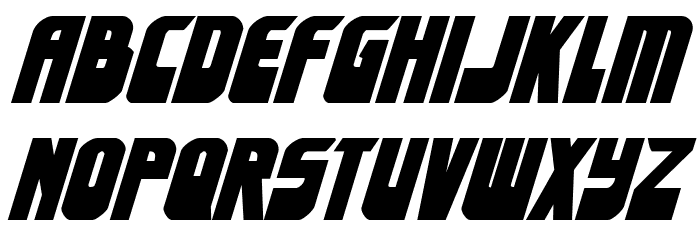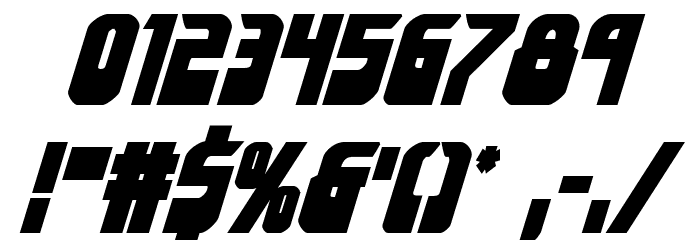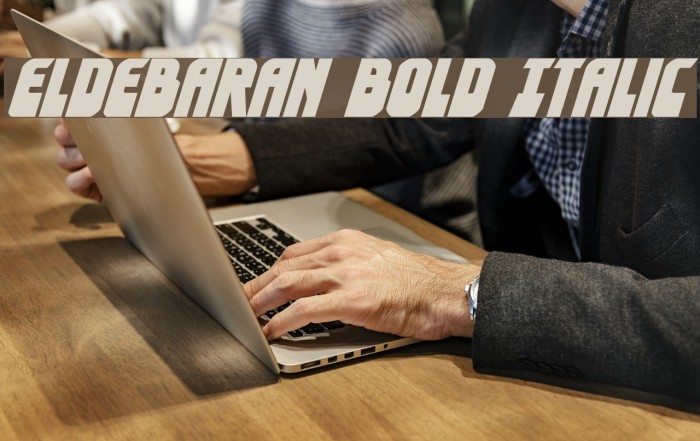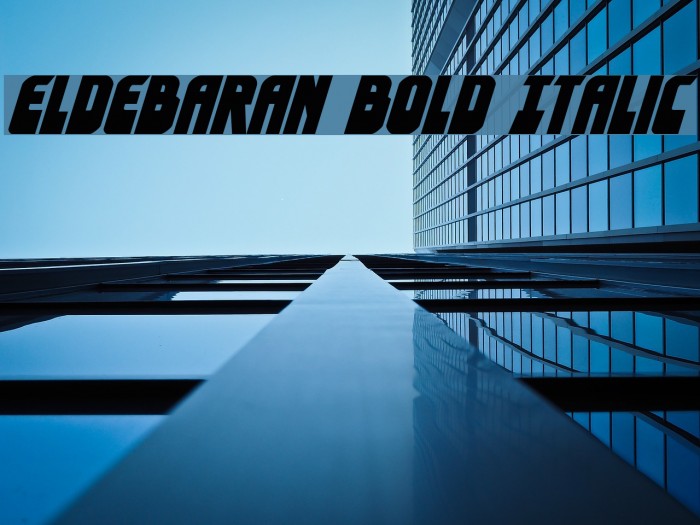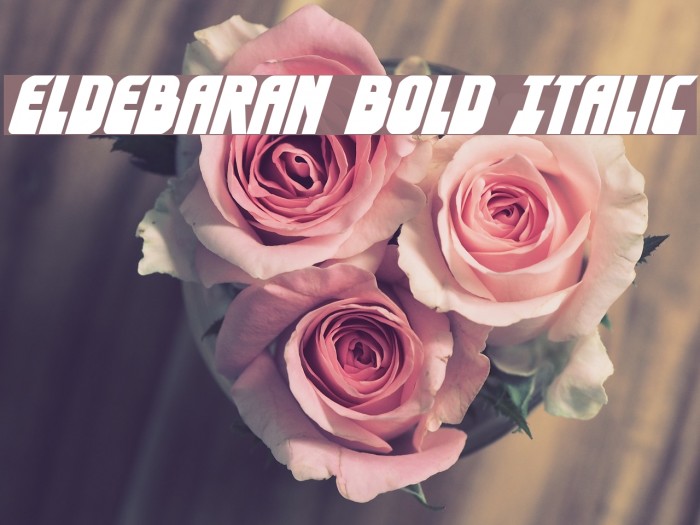
Eldebaran Bold Italic Font
This font features a bold and italicized style with a strong, dynamic presence. The characters are designed with sharp angles and a forward-leaning slant, giving a sense of motion and energy. The uppercase and lowercase letters maintain a consistent weight, contributing to a cohesive and impactful appearance. The numbers and special characters follow the same stylistic approach, ensuring uniformity across all glyphs. The font's boldness and italic nature make it suitable for attention-grabbing headlines and titles.
A bold, italicized font with sharp angles and a dynamic, forward-leaning style.
- Proposed Projects: Ideal for sports branding, dynamic posters, modern advertisements, and impactful headlines.